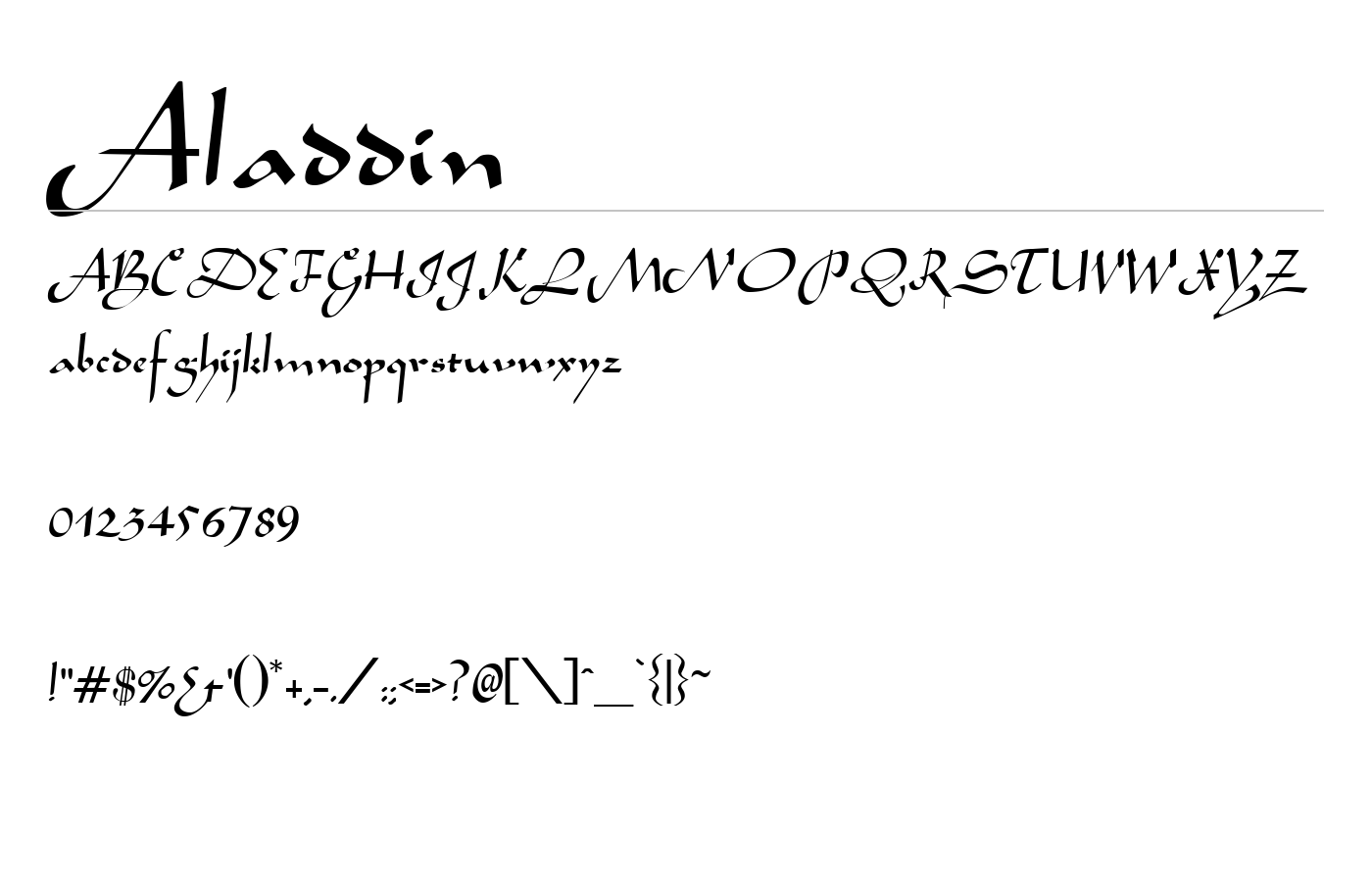
Aladdin is an elegant script font with a handwritten, calligraphic style that blends sharp, flowing strokes and a slightly whimsical character. Its light weight and moderate contrast give it a refined yet approachable feel, making it ideal for creative branding, invitations, and decorative headlines where a touch of sophistication and charm is desired. This font works well in contexts that benefit from a graceful, artistic flair without sacrificing readability.
Aladdin Font
About Aladdin Font